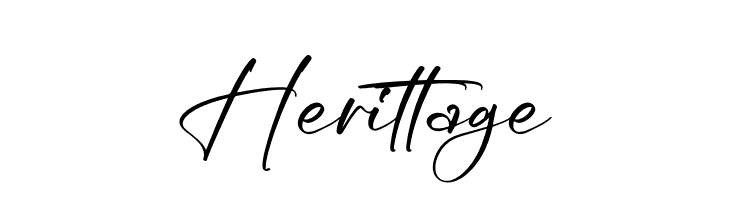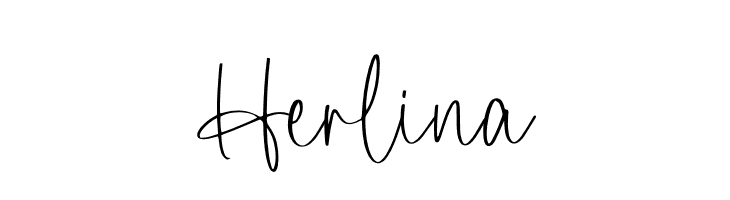
An elegant, flowing script font with modern, dynamic strokes.
A modern, clean sans-serif font with excellent readability.
A modern sans-serif font with clean, geometric letterforms.
A whimsical and artistic font with playful, cartoon-like characters.
A bold, italic font with angular, geometric characters and a dynamic style.
Elegant serif font with high contrast and sharp serifs.
A bold, geometric font with sharp angles and a futuristic style.
A dynamic and flowing script font with elegant cursive letterforms.
A bold, energetic brush-style font with a dynamic and expressive appearance.
A bold, geometric font with a modern, digital aesthetic.
Bold, geometric font with angular lines and a modern aesthetic.
A bold, italicized font with a modern, angular design and tight character spacing.
A modern, angular italic font with a dynamic, forward-moving style.
A bold, geometric font with a modern, futuristic style.
A bold, geometric font with sharp edges and a modern industrial feel.
A bold, italicized font with geometric shapes and angular lines for a modern look.
A bold, italicized font with a modern, angular design.
A hand-drawn, expressive font with irregular, organic strokes.
A geometric, futuristic font with a modular and minimalistic design.
A pixelated, retro-style font with a blocky, geometric design.
A bold, geometric font with a futuristic and industrial design.
A bold, geometric font with a futuristic and blocky design.
A modern, geometric font with clean lines and a minimalist style.
A bold, decorative font with medieval-inspired, artistic flourishes.
An ornate Gothic-style font with elaborate flourishes and sharp angles.
A bold, rounded sans-serif font with a modern and cohesive design.
A modern, elegant serif font with high contrast and elongated strokes.
A bold, rounded font with a playful and informal style.